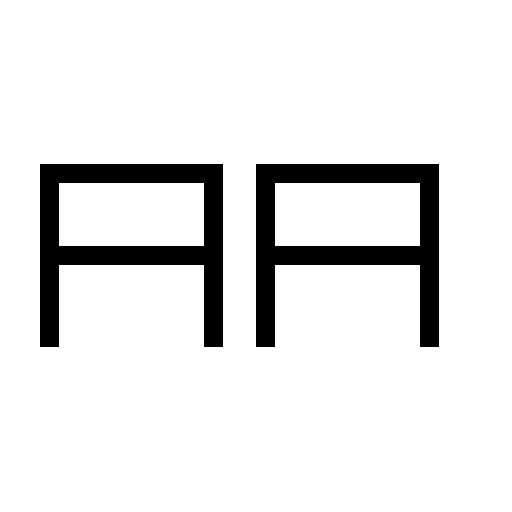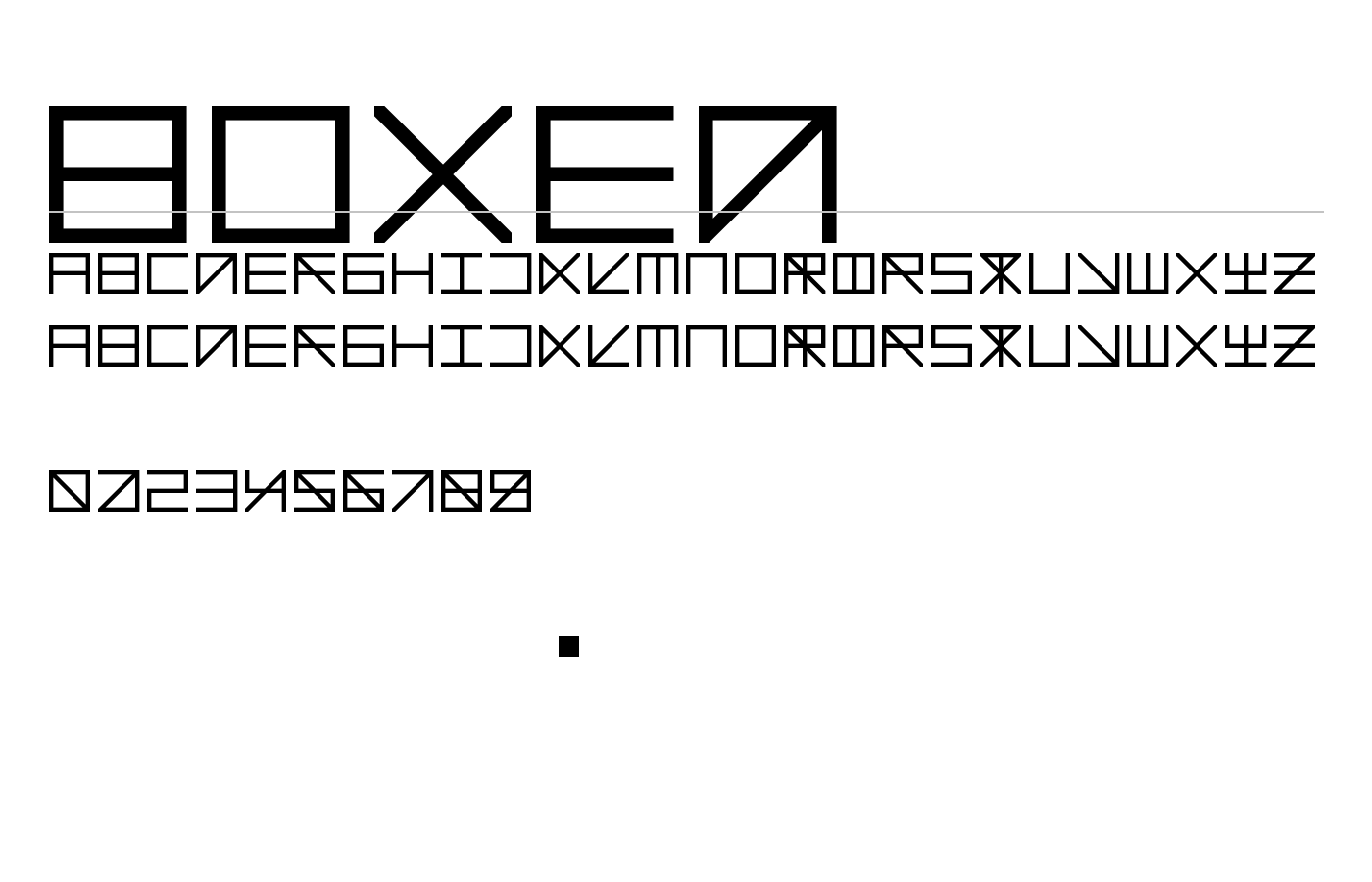
Boxed Font is a modern, geometric sans serif typeface characterized by its sharp, angular lines and uniform stroke weight that create a fragmented, almost architectural feel. Its narrow proportions and distinctive letterforms make it ideal for bold, futuristic branding and display use, where a unique, high-tech personality is desired. This font works best in creative projects such as logos, posters, and editorial headlines that aim to stand out with a strong, innovative look.
Boxed Font